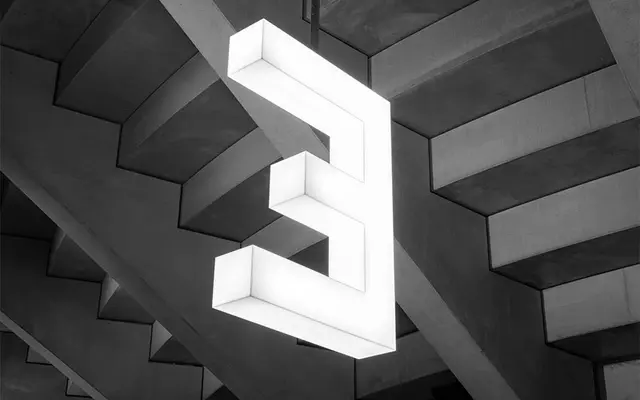
FRAC
Binnenland · Nik Thoenen · 2003
A grid-based geometric display face built for signage and corporate identity, constructed entirely from straight lines on a seven-by-seven dot matrix.
Designed by Nik Thoenen in 2003 for the Fonds régional d'art contemporain de Lorraine in Metz, FRAC is an uppercase-only typeface in which every letterform is resolved through minimal dot connections on a rigid seven-by-seven grid. All strokes are straight, all terminals are abrupt, and weight increases follow a halving ratio applied to the same underlying skeleton. The approach follows early CAD single-stroke lettering conventions, prioritising independence and legibility of each character over decorative expression.
FRAC is a strictly geometric uppercase-only display typeface built on a seven-by-seven dot grid using only straight lines and sharp angles, placing it firmly in the modular geometric display tradition derived from early CAD and constructivist lettering.